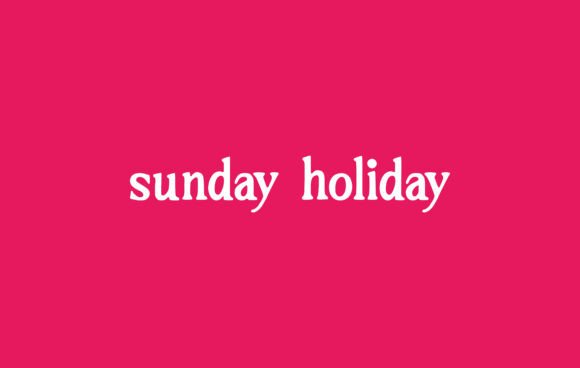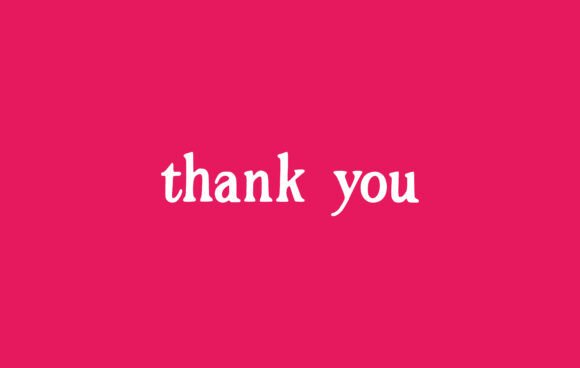
Introduction to Modster Groove Font
Modster Groove font is an authentic handwritten font with a romantic touch.
Key Features of Modster Groove Font
Why Choose Modster Groove Font?
Modster Groove Font offers exceptional quality and versatility, making it a valuable addition to your design toolkit. Whether you’re creating for personal projects or commercial use, Modster Groove Font delivers professional results.